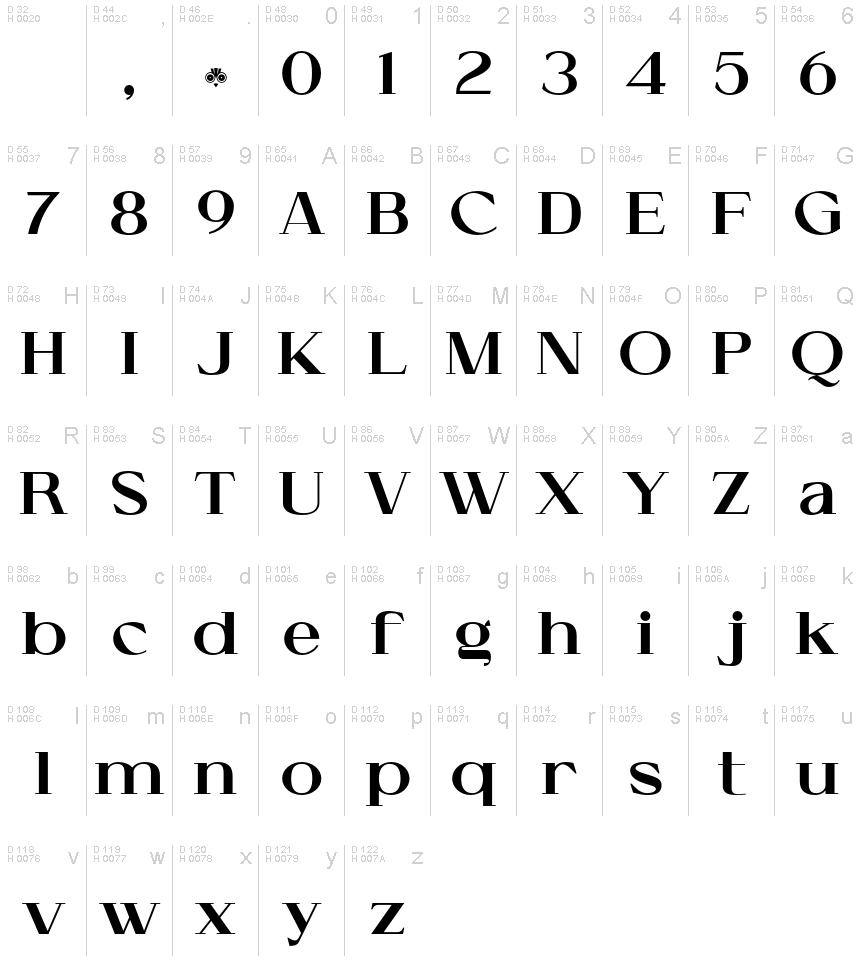
Cellofy-ExtBlkSemExp
Cellofy ExtBlk SemExp font from the Cellofy family by Owlking Project showcases a bold and confident serif style. Its dynamic, slightly expanded form adds a touch of elegance and sophistication, making it an excellent choice for impactful headlines and branding projects.
This free font is perfect for personal use in creating striking posters, invitations, and editorial designs. With its distinctive character and aesthetic appeal, Cellofy ExtBlk SemExp offers designers a tool to elevate their creative projects.